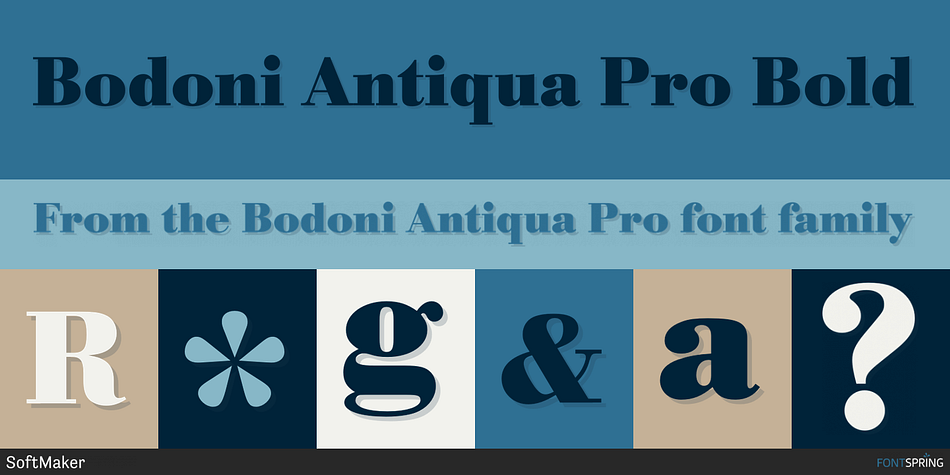
Bodoni Antiqua Pro Bold
Bodoni Antiqua Pro is a serif font family. This typeface has eighteen styles and was published by SoftMaker.
In the late 1700s Italian master printer Giambattista Bodoni created the typeface that bears his name and has endured for over two centuries. Berthold Bodoni Antiqua was first introduced in 1930.
A popular, versatile family, Bodoni Antiqua is the corporate typeface of IBM.